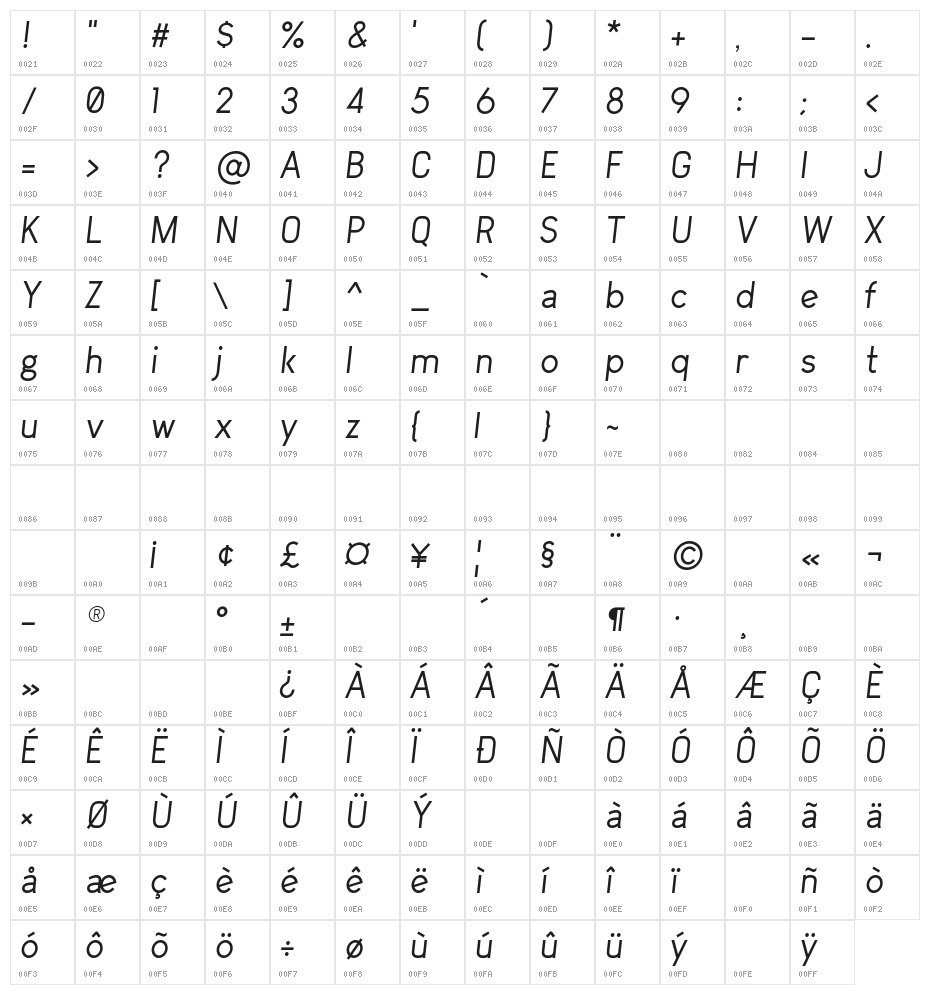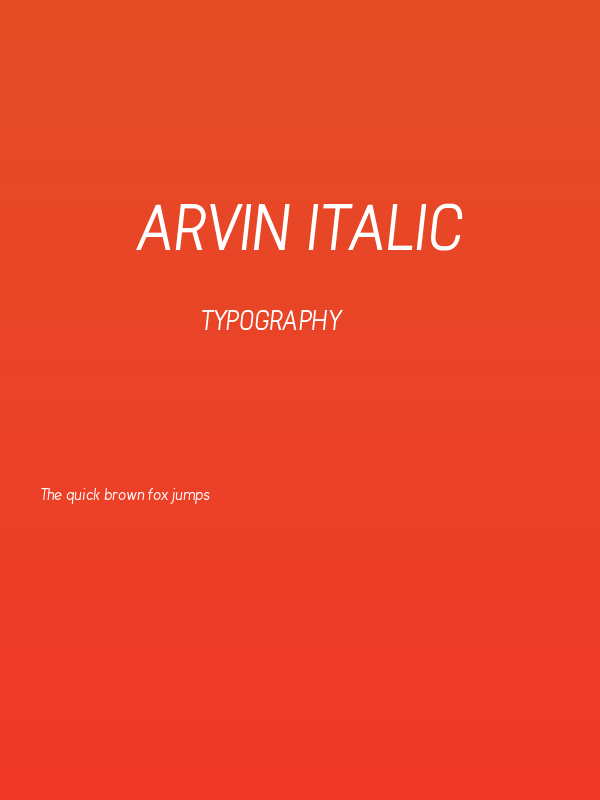
Arvin Italic Font
Arvin Italic Description
This font features a sleek and modern italic style with clean lines and a slightly condensed form. The characters are well-balanced, offering a harmonious flow that enhances readability while maintaining a stylish appearance. The uppercase letters are bold and assertive, while the lowercase letters provide a softer, more approachable feel. The numerals are clear and distinct, making them suitable for various applications. Special characters are included, adding versatility to the font's usage. Overall, this font exudes a contemporary elegance, making it ideal for projects that require a touch of sophistication.
| Proposed Projects | Ideal for branding, editorial design, advertising, and digital media projects that require a modern and sophisticated touch. |